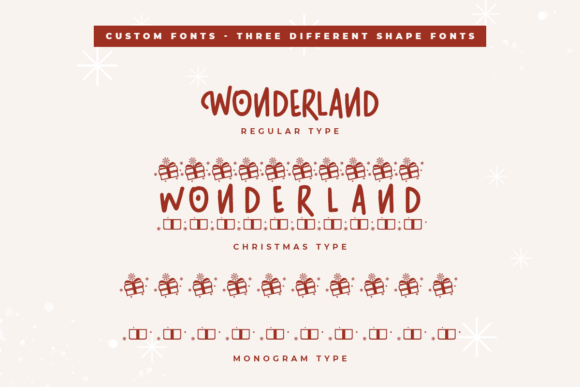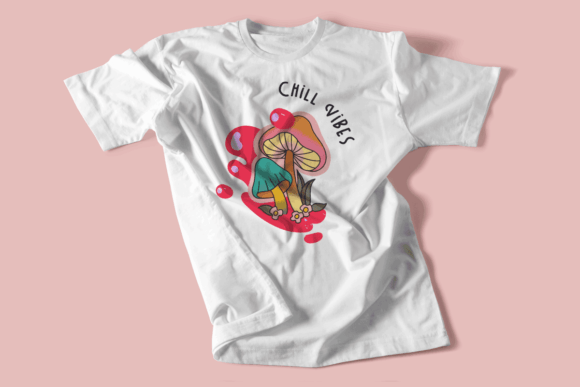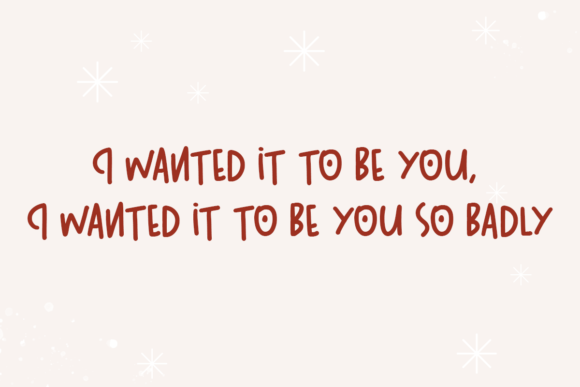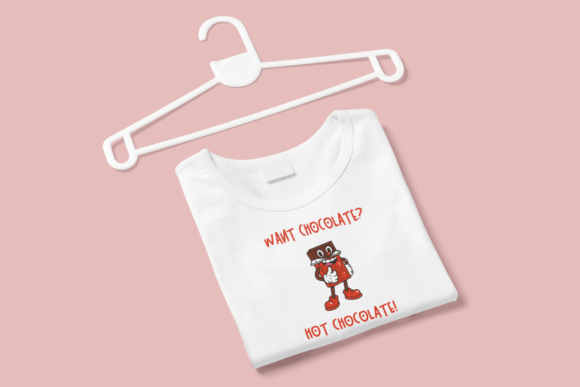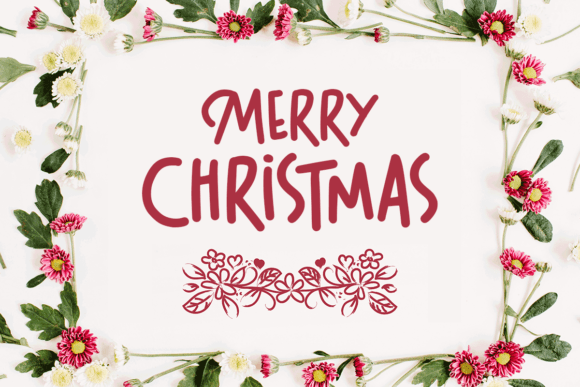
Introduction to Snow Boom Font
As a designer, have you ever found yourself brainstorming ideas for a winter-themed project and suddenly, the perfect font pops into your mind? It’s that moment of creative spark that can make all the difference in bringing your vision to life. For many, that font is the Snow Boom Font – a display font that exudes fun and whimsy, perfect for capturing the magic of the winter season.
Whether you’re working on a festive holiday card, a winter wonderland-themed poster, or a creative project that requires a dash of wintery charm, the Snow Boom Font is an invaluable design resource. Its incredibly versatile style makes it easy to use, and its transparent background allows for seamless integration into any design. With its high-quality design, it’s no wonder designers are falling in love with the Snow Boom Font.
Key Features of Snow Boom Font
- Unique, hand-drawn style with intricate details, perfect for adding a touch of elegance to your design.
- Perfect for use in various design applications, including logos, typography, and creative graphics.
Honest Review: Snow Boom Font
One of the standout features of this font is its transparent background, which makes it perfect for overlaying on top of images or backgrounds. The high-quality design ensures that the text remains crisp and clear, even at larger font sizes.
- Perfect for creative projects that require a unique touch
- ⚠️ Limited character set, which may not be suitable for longer texts
- ⚠️ May not be as versatile as other fonts for use in multiple contexts
Overall, I’m impressed with the Snow Boom Font, and I would definitely recommend it for designers looking for a unique and high-quality font. While it may have some limitations, it’s a great resource for creative projects that require a touch of elegance and sophistication.
Tips for Getting the Most Out of Snow Boom Font
Use Snow Boom Font for creative projects that require a unique and elegant touch. Experiment with different font sizes, colors, and combinations to create visually appealing designs.
Snow Boom Font is perfect for use in invitations, greeting cards, and other creative projects that require a touch of sophistication. It’s also great for designers who want to add a unique and elegant touch to their work.